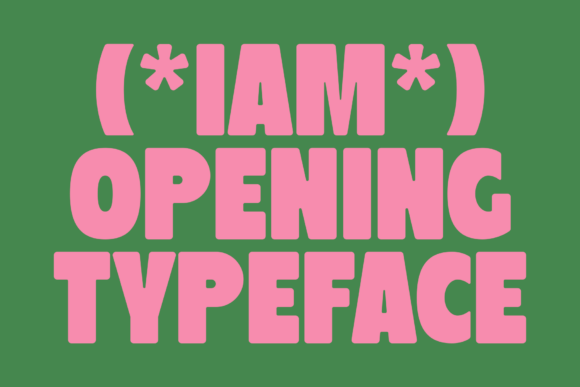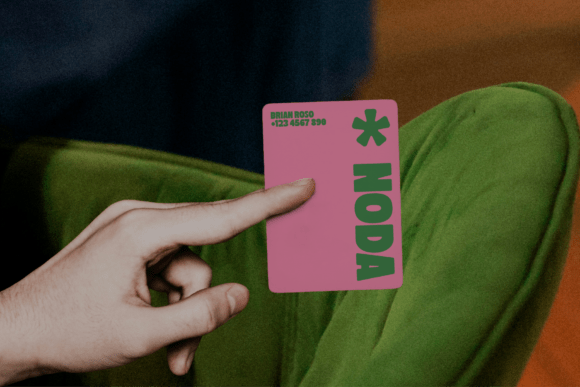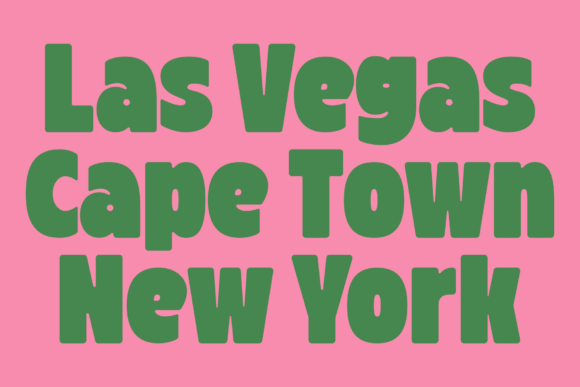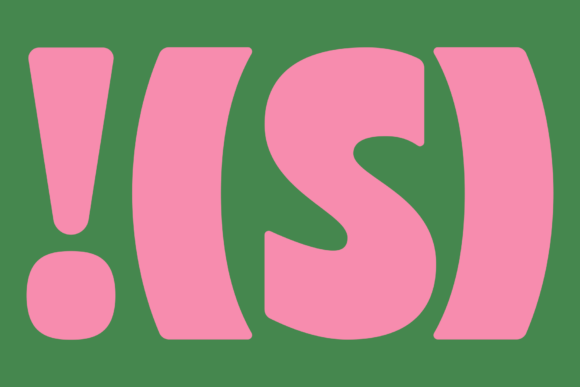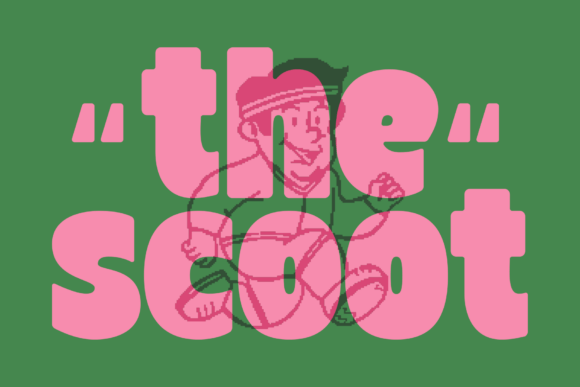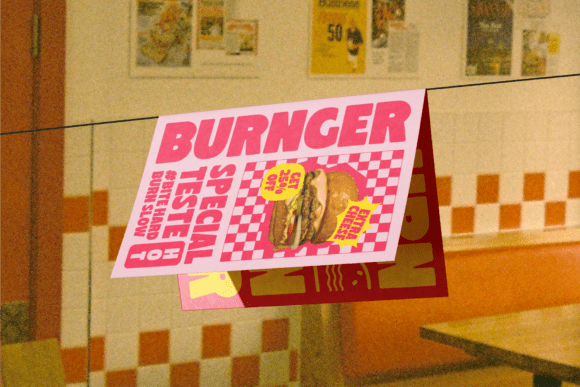
The Sweet Spot: How Dango Font Became My Go-To for Playful Designs
I still remember the design project that led me to discover Dango Font. I was working on a branding campaign for a trendy new snack food company, and I needed a font that would convey the fun, playful vibe of their products. I spent hours scouring font websites, but nothing seemed quite right – until I stumbled upon Dango. Its chunky, rounded letterforms and bold weight immediately caught my eye, and I knew I’d found the perfect fit.
First Impressions: A Review of Dango Font
- ✨ Ultra-bold and attention-grabbing: Dango Font packs a punch with its heavy, substantial presence on any design.
- ✅ Playful and fun: The rounded letterforms evoke the soft, chewy aesthetic of traditional Japanese dumplings, adding a touch of whimsy to any design.
- ✅ Versatile: From snack packaging to streetwear branding, modern toy store logos, and social media headers, Dango Font is perfect for a wide range of applications.
While Dango Font is an amazing addition to any design project, there are a few things to keep in mind:
- ⚠️ Legibility at small sizes: Due to its bold weight and rounded letterforms, Dango Font can become a bit tricky to read at very small sizes. It’s best used at larger sizes where its playful personality can shine.
- 🤔 Overuse: With a font as attention-grabbing as Dango, it’s easy to overuse it. Make sure to balance it with other fonts or design elements to avoid overwhelming your audience.
The Story Behind Dango Font
According to its creators, Dango Font was inspired by the humble Japanese dumpling – a food known for its soft, chewy texture and comforting presence. The font’s designer wanted to capture the playful, indulgent spirit of these tasty treats and bring it to the world of typography.
| Font Name | Dango Font |
| Author | Marvadesign |
| What is Dango Font best used for? | Dango Font is perfect for vibrant snack packaging, independent streetwear branding, modern toy store logos, and high-energy social media headers. |
| Is Dango Font easy to read? | While Dango Font is bold and attention-grabbing, it can become tricky to read at very small sizes. It’s best used at larger sizes where its playful personality can shine. |